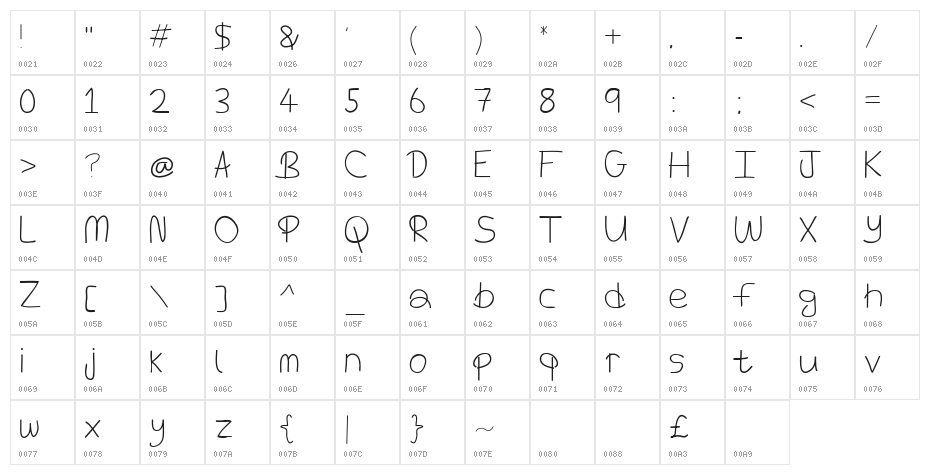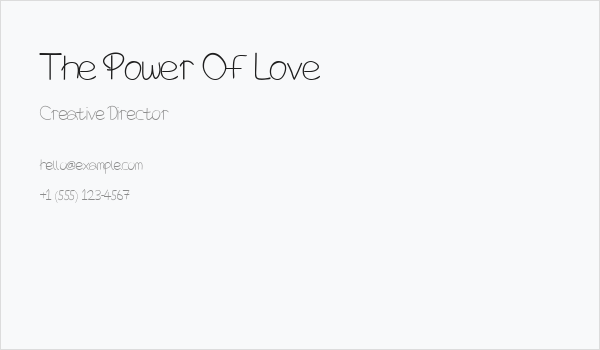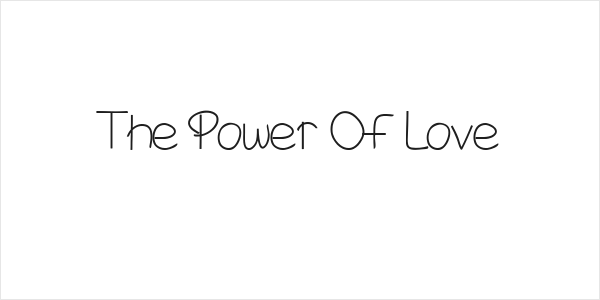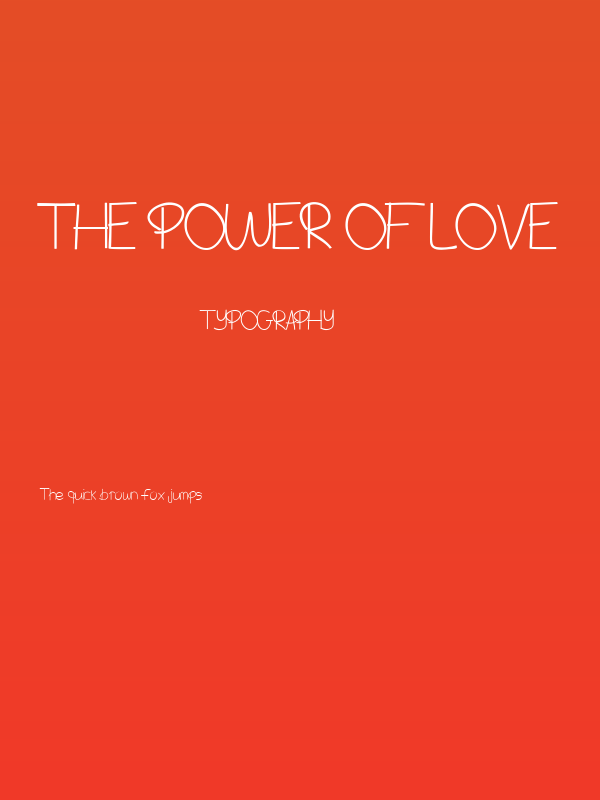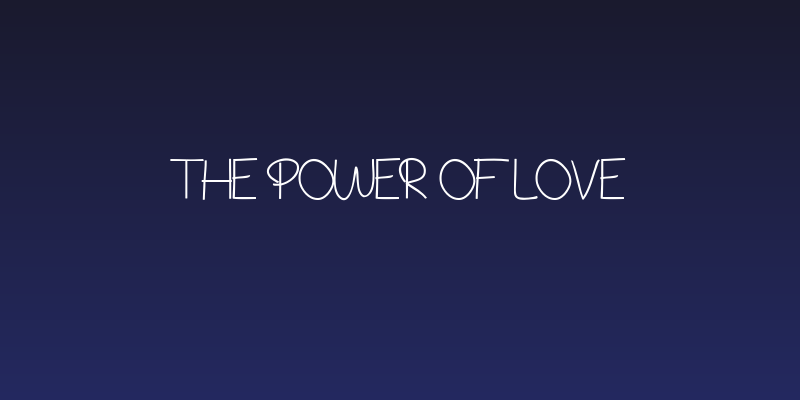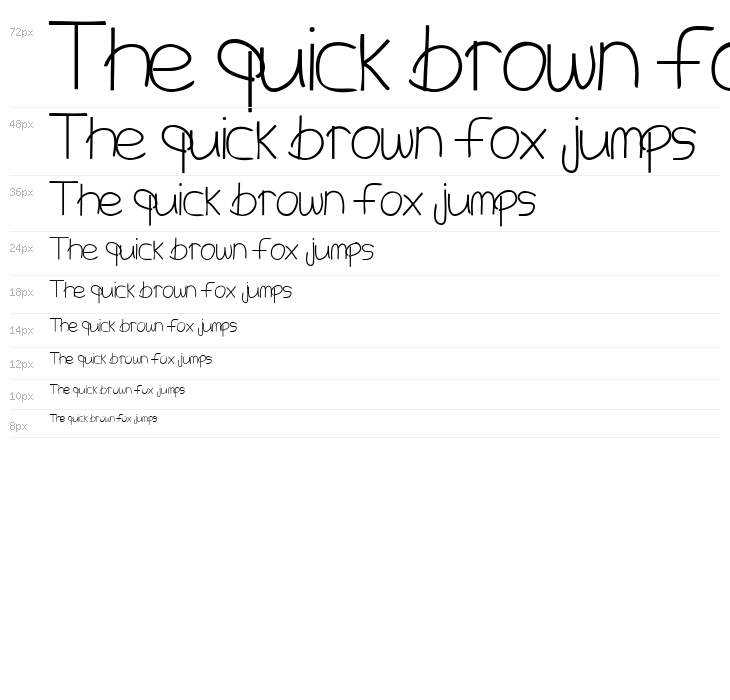
The Power Of Love Font
The Power Of Love Description
This font features a playful and casual handwritten style, characterized by its thin, consistent strokes and rounded edges. The letters are slightly irregular, giving it a whimsical and informal appearance. The uppercase and lowercase letters maintain a uniform height, contributing to a cohesive look. Numbers and special characters are designed with the same playful aesthetic, ensuring a harmonious overall style. The font's simplicity and charm make it suitable for projects that require a friendly and approachable tone.
Overall StyleCasual
Use CaseHeadlines, Logos, Informal text
Proposed ProjectsIdeal for greeting cards, children's books, casual invitations, and playful branding.